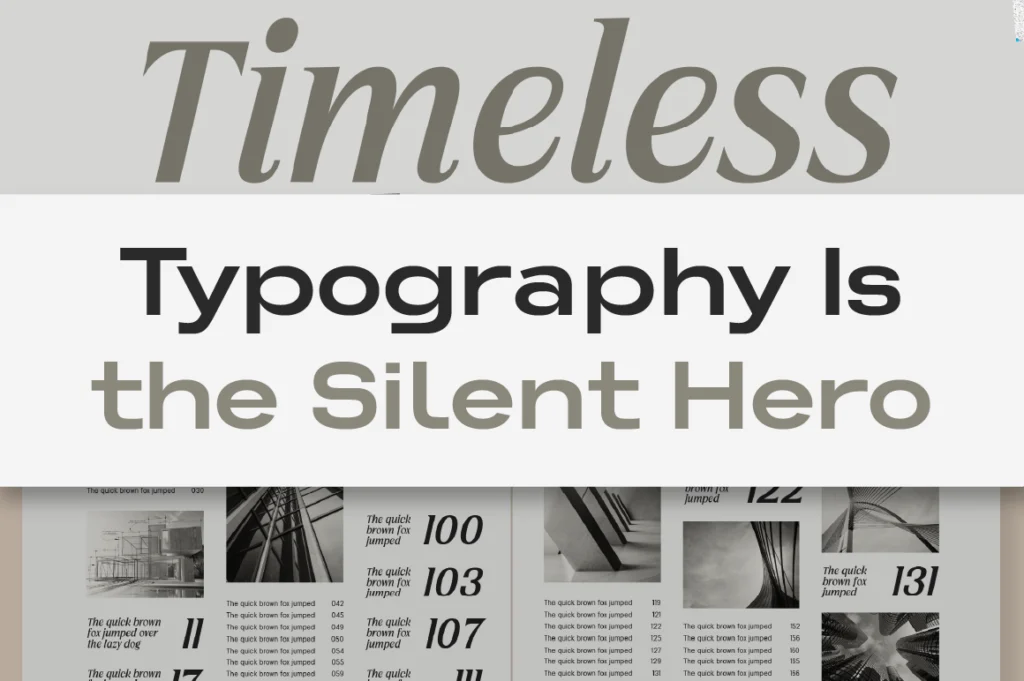
Why Typography Is the Silent Hero of Modern Branding
In today’s fast-paced digital world, design trends evolve quickly — but one thing never changes: typography. It’s the invisible foundation that gives every brand its voice, personality, and rhythm. A typeface doesn’t just spell out a name; it shapes how people feel about it.
Whether minimal or expressive, typography quietly dictates the tone of every interaction. It’s the silent hero that transforms visuals into meaning, trust, and memory.
1. Typography Builds Recognition
A consistent typeface makes your brand instantly familiar. Think of how major brands use one family across packaging, websites, and campaigns — that visual consistency builds trust subconsciously.
2. Emotion Hidden in Letterforms
Every curve, spacing, and weight influences mood. Serif fonts like Cardival feel elegant and timeless, while clean sans serifs like Alvara Sans convey confidence and clarity.
3. Voice Before Words
Even before your audience reads, they already hear your tone — through typography. The right pairing of fonts ensures your brand’s voice is loud and clear, even in silence.
Conclusion
Typography doesn’t ask for attention — but it earns it. When used with intent, it becomes your most persuasive design element, bridging visual style and emotional connection.